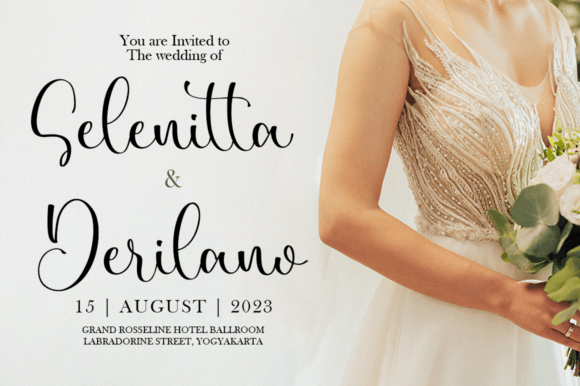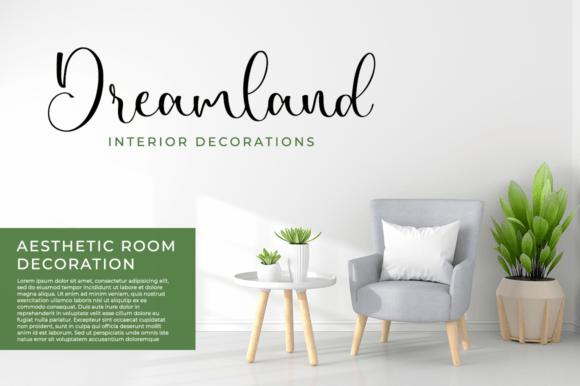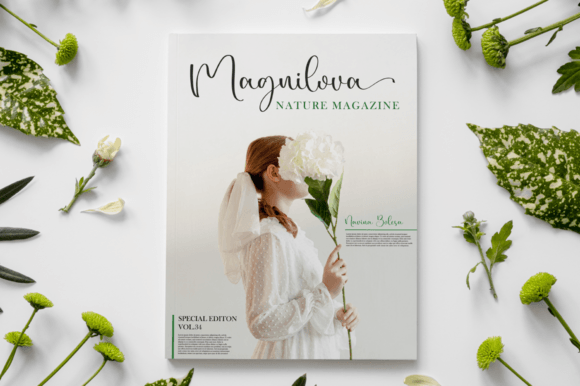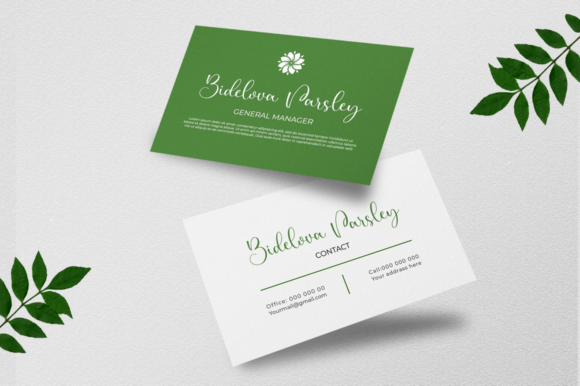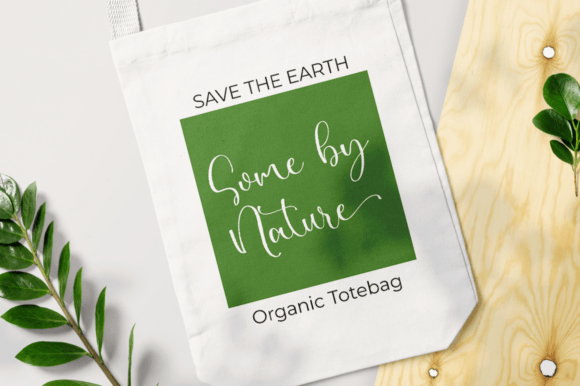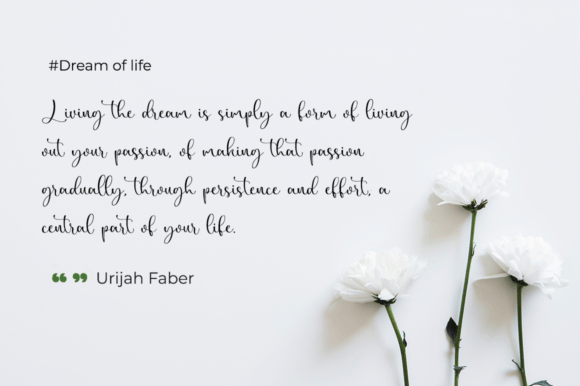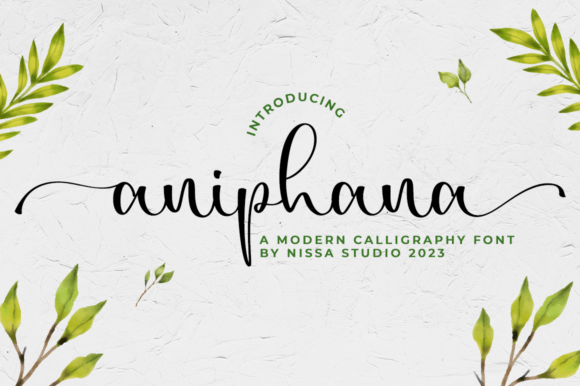
The Elusive Perfect Font: My Encounter with Aniphana
Ah, the quest for the perfect font – a journey every designer, crafter, and creative hobbyist can relate to. I recall working on a wedding invitation project, determined to create something that would make the happy couple’s special day even more memorable. The design was coming along beautifully, but I was stuck on one thing: the font. It had to be elegant, modern, and convey a sense of warmth. That’s when I stumbled upon Aniphana, a beautiful script font that would change the game.
An Honest Review of Aniphana Font
So, what makes Aniphana so special? Let’s dive into the good stuff and, of course, a few quirks I’ve encountered.
What I Love About Aniphana ✨
- ✅ Elegant and modern design that’s perfect for a variety of projects, from logos and branding to invitations and social media posts.
- ✅ PUA (Private Use Area) encoded, making it easy to access all glyphs and swashes.
- ✅ Highly versatile, allowing for a range of creative possibilities.
- ✅ The handwritten touch it adds to any design is simply beautiful.
- ⚠️ As with any script font, readability can be a challenge at smaller sizes. Make sure to test it out in different contexts.
- ⚠️ Some users might find the learning curve for accessing all the glyphs and swashes a bit steep, but trust me, it’s worth it.
The Story Behind Aniphana: A Designer’s Inspiration
While the exact origin story of Aniphana remains a mystery, it’s clear that the designer aimed to create a font that embodies elegance, modernity, and a touch of whimsy. Imagine a designer, sitting with a pen and paper, trying to capture the fluidity of handwriting while maintaining readability and style. That’s Aniphana in a nutshell – a beautiful blend of traditional and contemporary design elements.
| What makes Aniphana suitable for logos and branding? | Its elegant and modern design ensures that your brand stands out while conveying professionalism and style. |
| Is Aniphana difficult to read at smaller sizes? | Like many script fonts, it may lose some readability at very small sizes. It’s best used at larger sizes where its details can shine. |
In conclusion, Aniphana is a stunning addition to any designer’s font library. Its elegance, versatility, and modern look make it perfect for a wide range of projects. While it may have a few quirks, the benefits far outweigh the limitations. Happy designing!